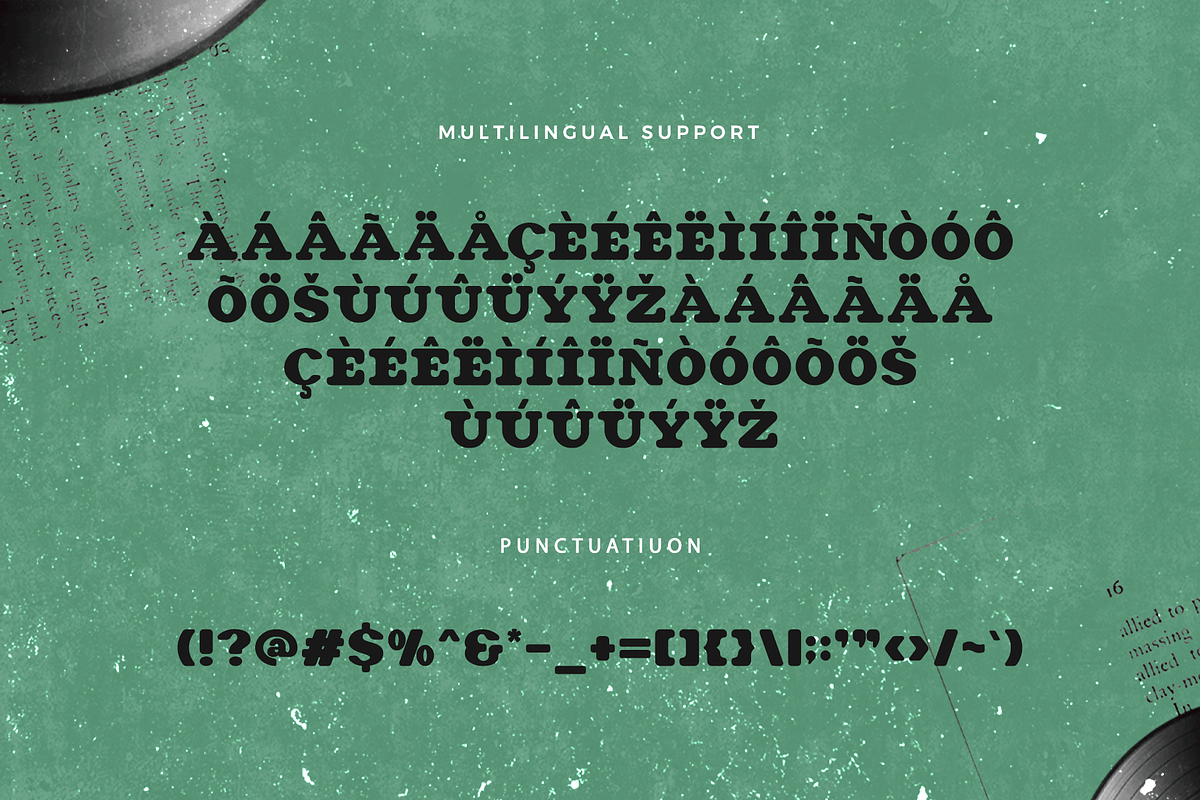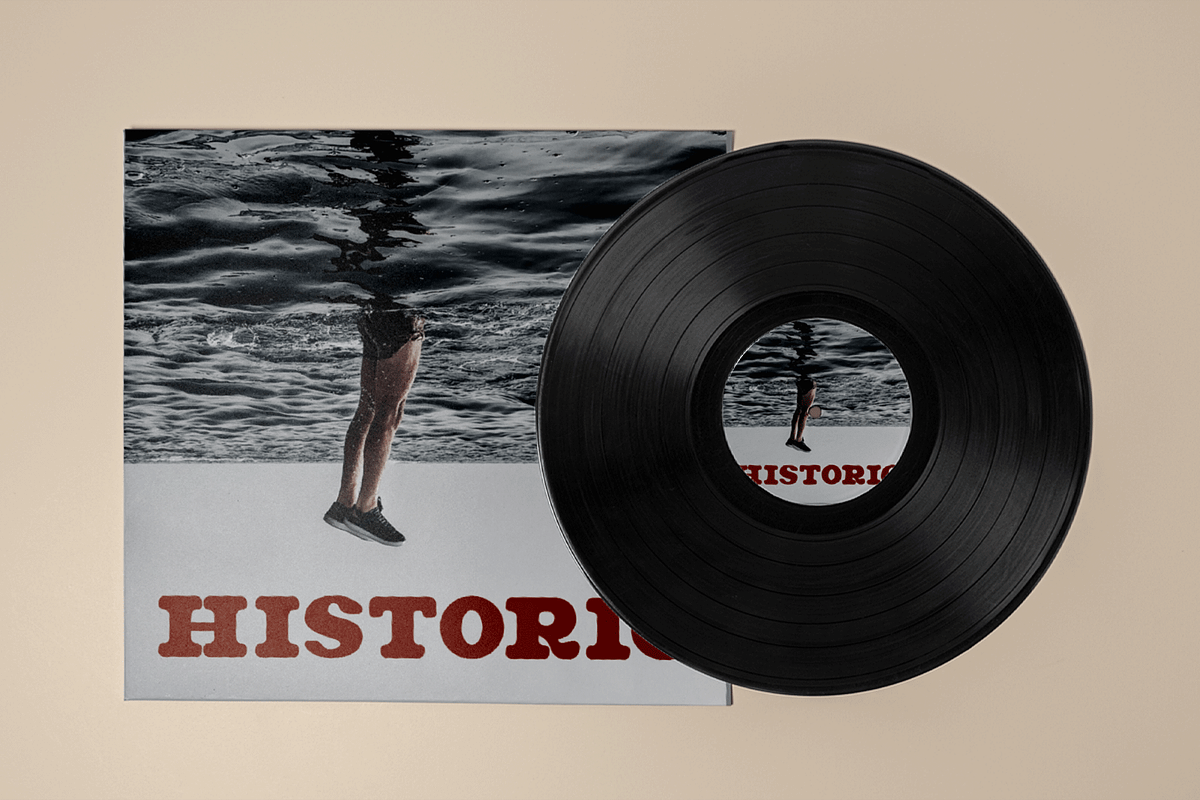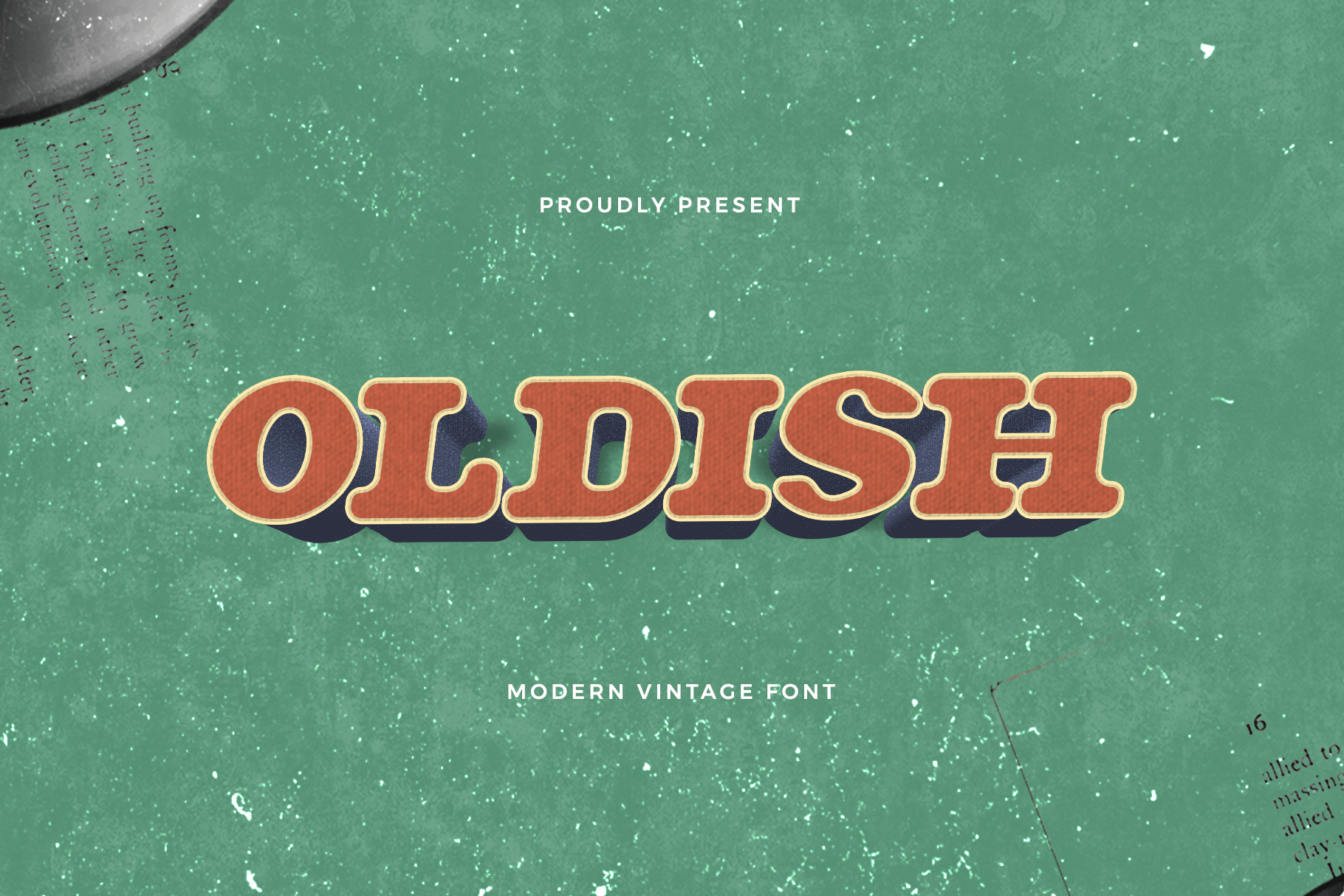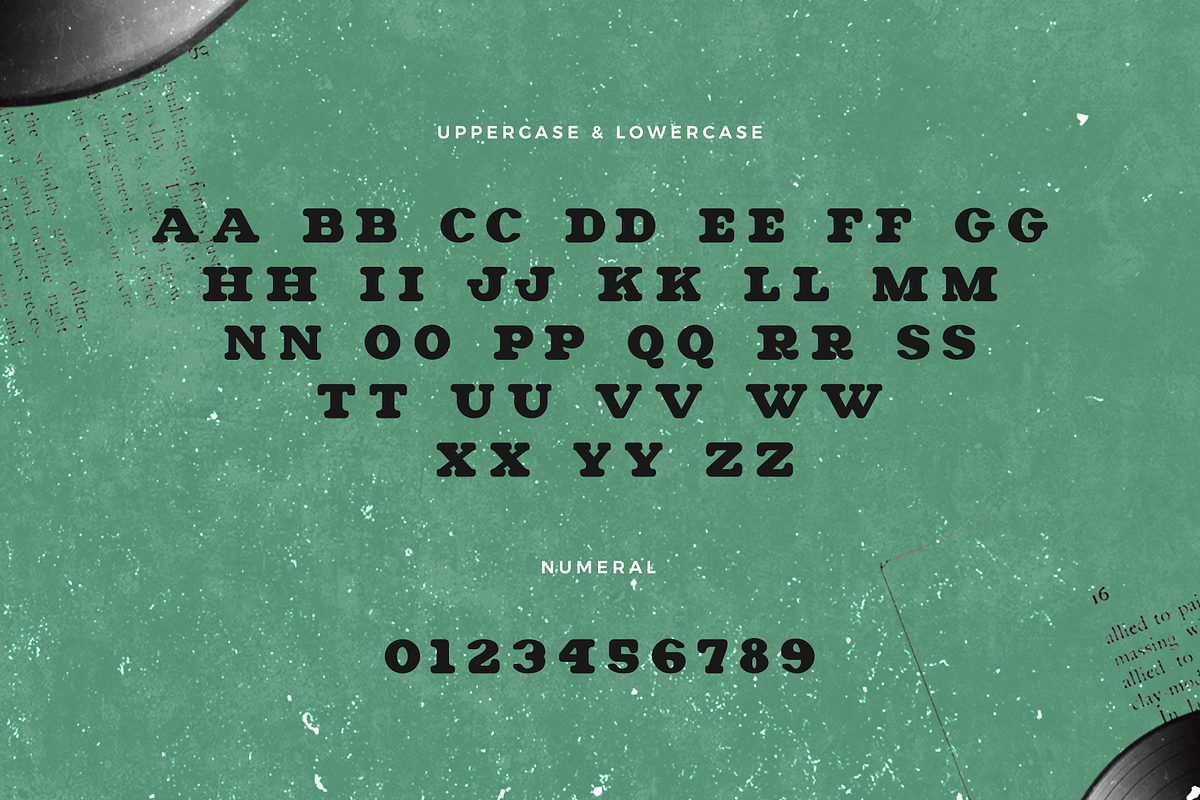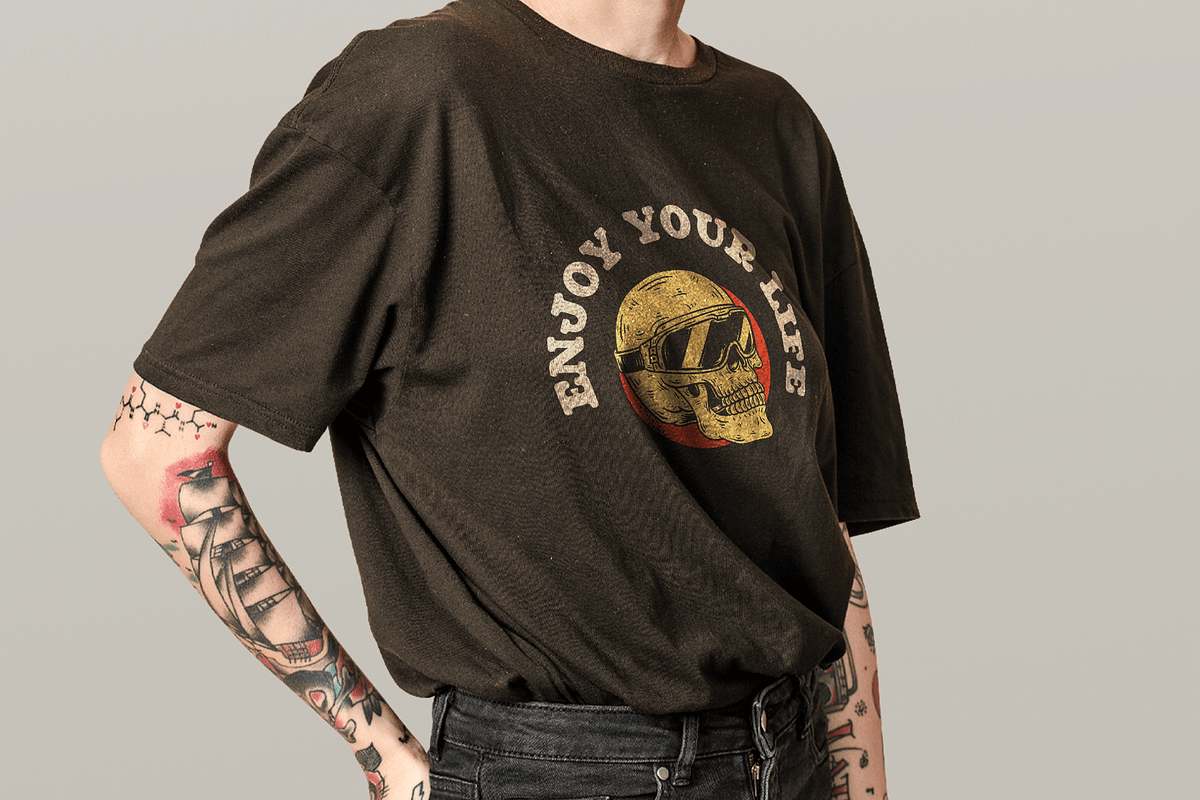
Oldish - A Modern Vintage Font
Oldish is a distinctive and stylish modern vintage font designed to bring a touch of classic charm to your contemporary design projects. With its nostalgic shapes and refined letterforms, Oldish is perfect for retro branding, vintage posters, classic book covers, and elegant packaging. This font harmoniously blends vintage aesthetics with modern design elements, ensuring your work stands out with timeless appeal and sophistication.
Crafted with attention to detail, Oldish features elegant characters that offer excellent readability and visual appeal. Its unique design makes it ideal for both headlines and body text, providing a cohesive and polished look across all your visual communications. The font’s versatility allows it to seamlessly integrate into various design contexts, from digital screens to printed materials.
Elevate your design projects with Oldish, a font that embodies the perfect fusion of vintage elegance and modernity. Its unique style and adaptability make it an essential addition to any designer’s toolkit for creating refined and memorable visuals. Enhance your work with Oldish and experience the charm of modern vintage typography.